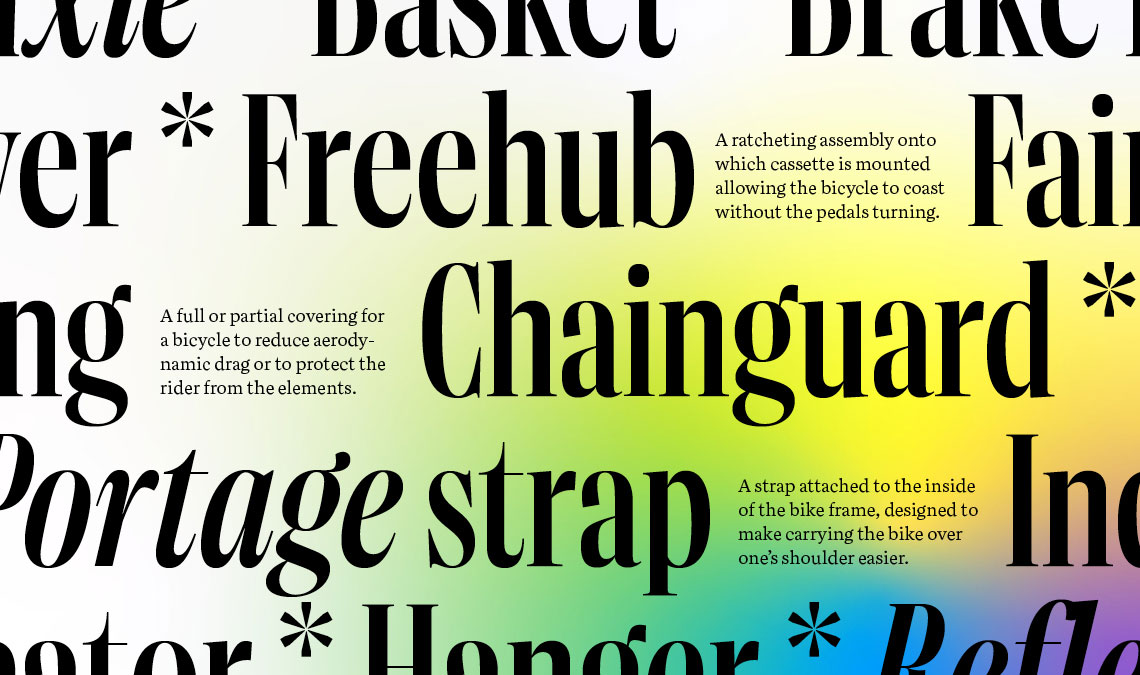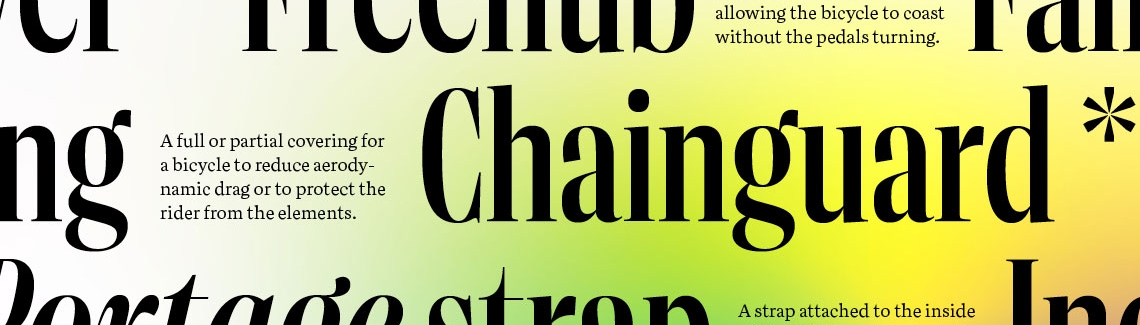
Aneto in motion
After over three years of diligent work and refinement, we are proud to announce the release of Aneto with its three subfamilies: Aneto Text, Aneto, and Aneto Skyline.
Aneto Text and Aneto are two families built upon the same skeleton and distinguished by their letter contrast to guide their appropriate use. This memorable serif creates flawless screen rendering, warm print production, and smooth readability.
As one of Aneto’s three subfamilies, Aneto Skyline is 36 fonts in a three-width power display, able to arrest the fickle eyes of viewers with the tallest, most impactful, and enticing headlines.
Type design: Veronika Burian, Roxane Gataud, Azza Alameddine, & José Scaglione.